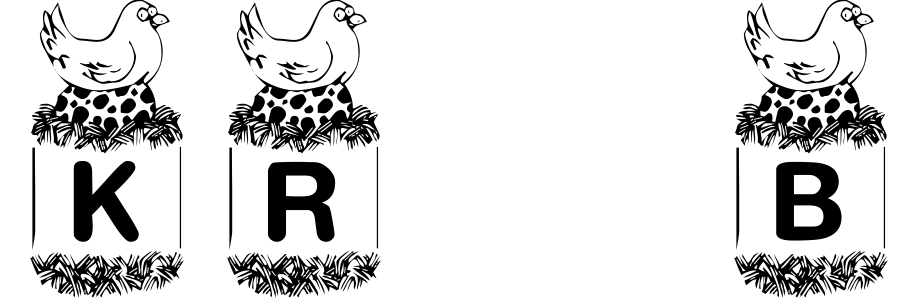
KR Birdy is a delightful and engaging font created by the talented designer Kat Rakos. This unique typeface immediately captures the attention of its audience with its playful and whimsical characteristics, closely resembling the light-hearted and joyful nature of birds. As one might expect from its name, KR Birdy incorporates elements inspired by the avian world, creating a sense of freedom and creativity that is both refreshing and inspiring.
The font features stylized characters that seem to dance and flutter across the page, much like birds flitting through the sky. Each letter is crafted with a sense of individuality and whimsy, making the act of reading a visually stimulating experience. The font's design strikes a balance between legibility and artistic expression, ensuring that while the letters are decorative and fun, they remain easy to read and understand in various contexts, from digital displays to print media.
KR Birdy is well-suited for projects that aim to evoke a sense of playfulness and imagination. It is particularly effective in contexts related to children's literature, creative branding, party invitations, or any design project that benefits from a touch of lightheartedness and joy. The font's charming aesthetic encourages designers to explore their creativity, allowing for the creation of unique and captivating designs that stand out in both digital and physical landscapes. Overall, KR Birdy by Kat Rakos is a testament to the power of font design in evoking emotions and creating memorable visual experiences.
KR Birdy